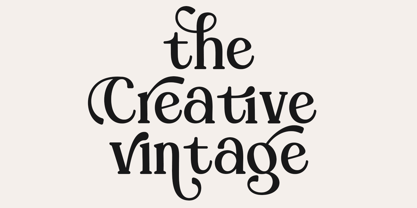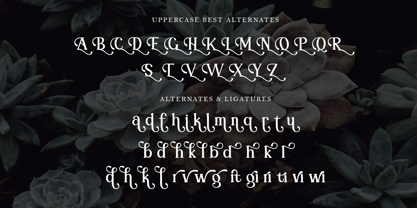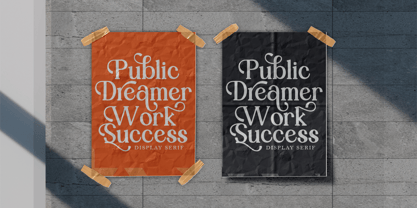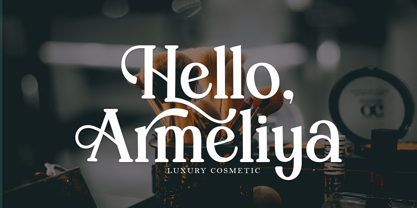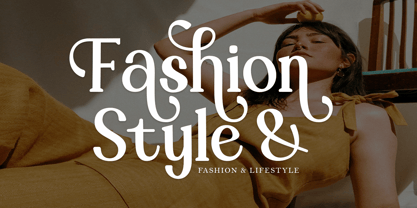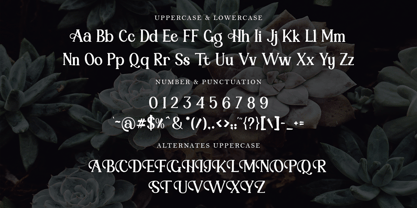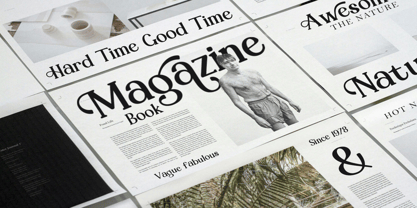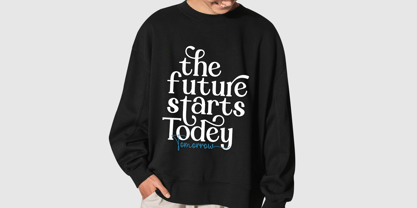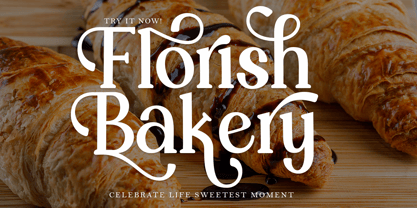
Bright Elegance
The Bright Elegance Font Family was designed by Khai Dir and published by Tertoecreative. Bright Elegance contains 1 styles. More about this family
Bright Elegance is a luxurious retro display serif font available in regular and italic styles. It features elegant alternates and stylish ligatures, making it perfect for branding, editorial designs, social media, packaging, and more. Its timeless charm adds sophistication to any project.